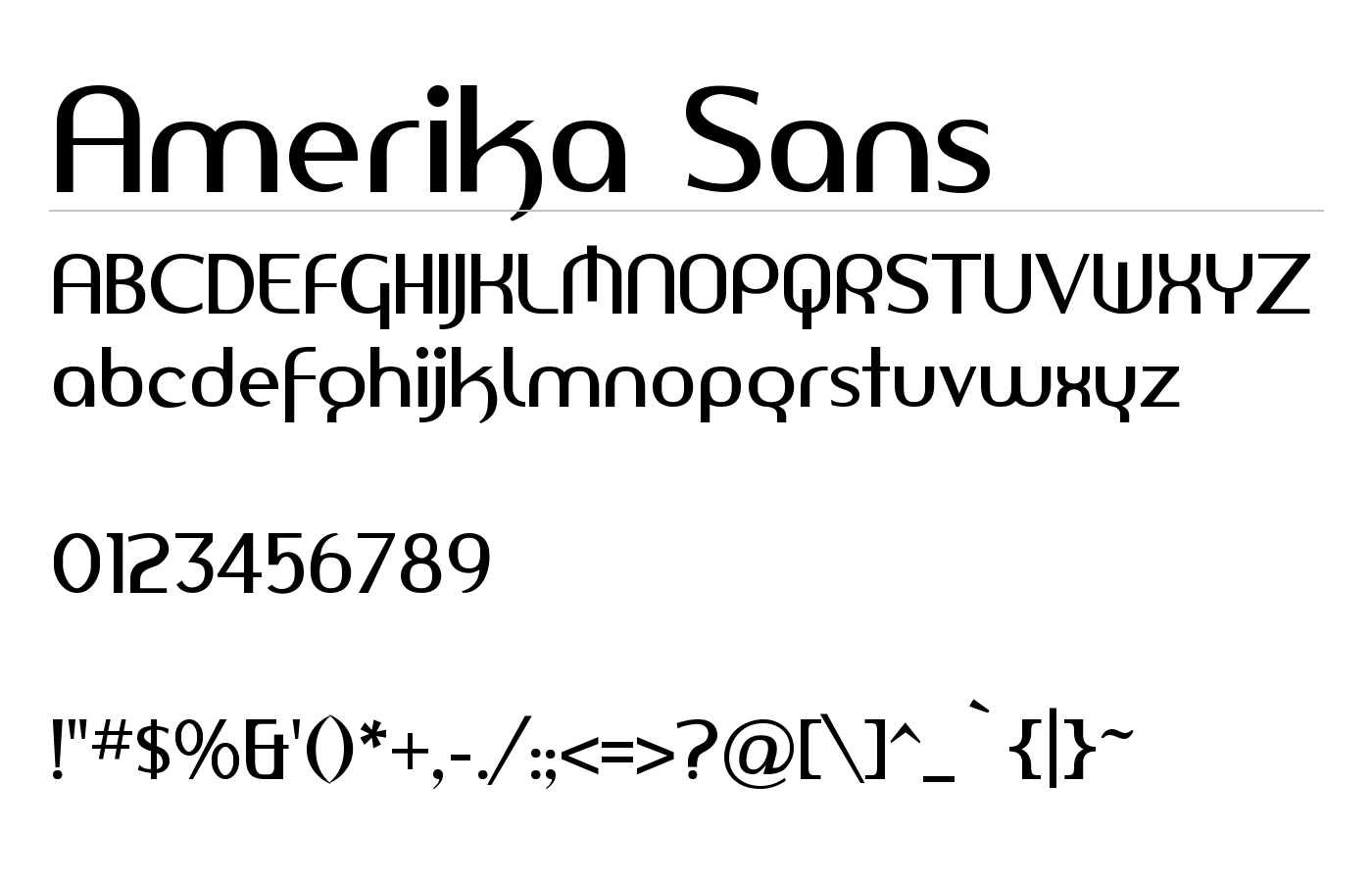
Amerika Sans is a modern sans serif font with a unique, geometric feel highlighted by its slender strokes, modest contrast, and distinctively unconventional letterforms, such as the stylized tail on the lowercase 'k' and the curved leg of the uppercase 'R'. Its clean, slightly condensed structure and elegant shapes make it ideal for contemporary branding, headlines, and editorial use where a fresh, creative, and sophisticated look is desired. This font works well for designs seeking a balance between readability and artistic expression, perfect for fashion, tech, or creative industries.
Amerika Sans Font
About Amerika Sans Font
| Font family | Amerika Sans Font |
| Designer | Apostrophe |